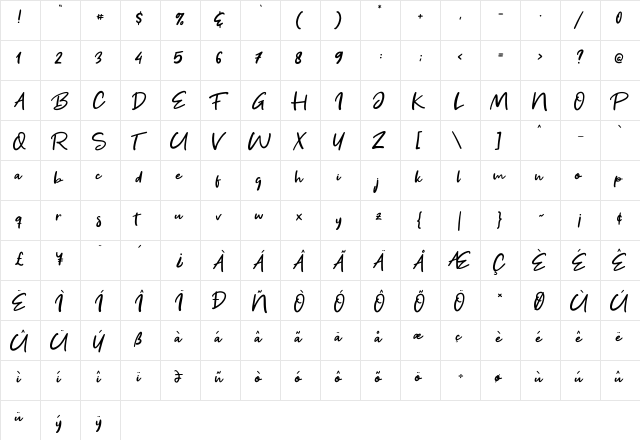
Get Show Regular
| Foundry | Suzuran |
| Designer | Suzuran |
Get Show is a composed and adaptable typeface that performs quietly and consistently across a wide range of design contexts.